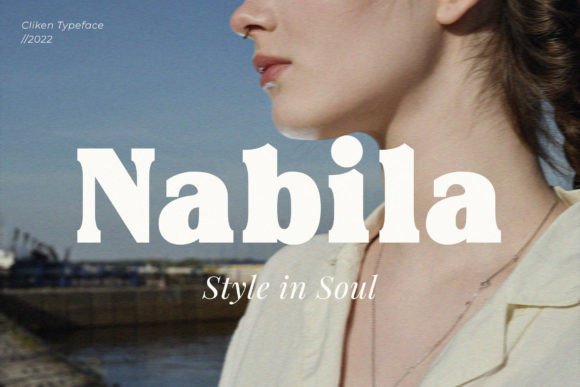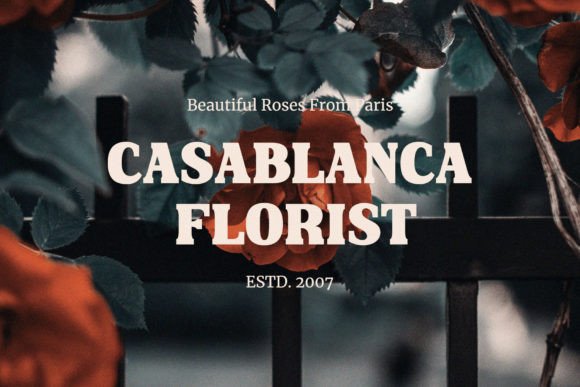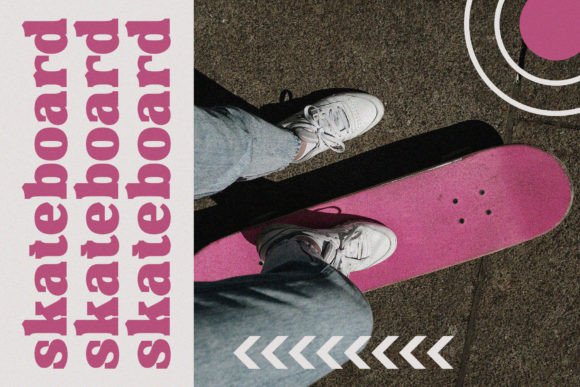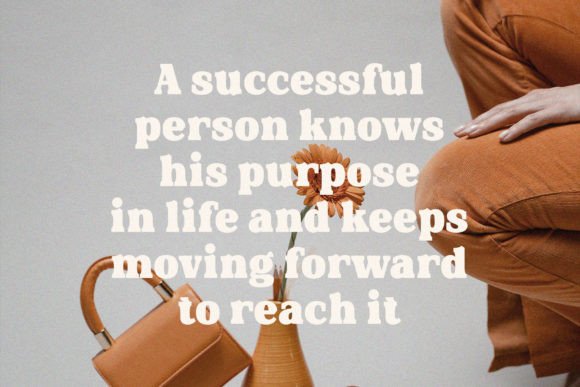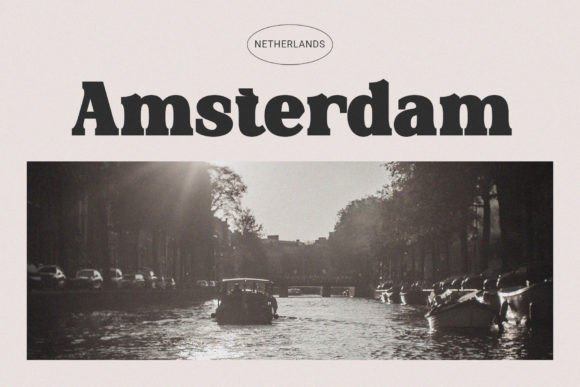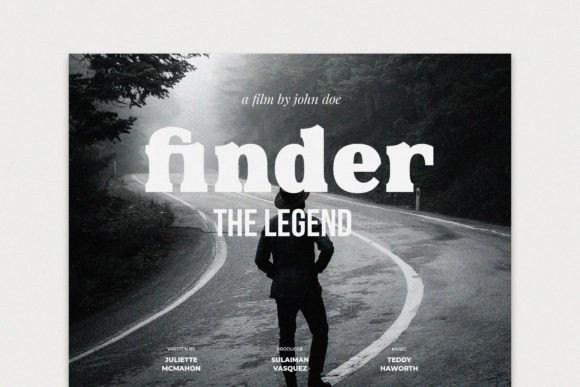
Introducing Cliken Font: Elevate Your Designs with Modern Elegance
In the world of typography, a font can make or break a design. For designers and crafters seeking a modern and stylish serif font, look no further than Cliken. This exquisitely crafted font is designed to bring a touch of sophistication and elegance to any project. With its highly detailed and neat structure, Cliken is poised to become a valuable asset in your font library.
The Characteristics of Cliken Font
Cliken is a modern serif font that boasts a unique blend of classic and contemporary elements. Its sleek lines, precise curves, and perfectly balanced proportions make it an ideal choice for a wide range of design applications. Whether you’re working on a branding project, creating a stylish website, or crafting a beautiful print material, Cliken’s versatility ensures it will adapt seamlessly to your creative vision.
Why Choose Cliken Font?
- Modern and Stylish: Cliken’s modern design ensures your projects look current and on-trend, while its stylish appearance adds a layer of sophistication.
- Highly Detailed: The font’s intricate details make it perfect for designs that require a high level of precision and clarity.
- Versatile: Cliken’s adaptability means it can be used across various mediums, from digital platforms to print materials.
- Easy to Read: Despite its stylish appearance, Cliken remains highly legible, making it suitable for body text as well as headlines.
Applications of Cliken Font
The applications of Cliken font are vast and varied. Here are a few ideas to get you started:
- Branding and Logo Design: Use Cliken to create a memorable and stylish logo that sets your brand apart.
- Web Design: Enhance your website’s typography with Cliken, making it more engaging and professional.
- Print Materials: From business cards to brochures, Cliken is perfect for any print material that requires a touch of elegance.
- Packaging Design: Add a sophisticated touch to your product packaging with Cliken’s modern serif style.
Tips for Using Cliken Font Effectively
To get the most out of Cliken, consider the following tips:
- Pair with Complementary Fonts: Combine Cliken with sans-serif fonts for a striking contrast.
- Adjust Line Spacing: Ensure optimal readability by adjusting line spacing according to your design’s requirements.
- Experiment with Colors: While Cliken looks great in black and white, don’t be afraid to experiment with colors to match your brand’s palette.
Cliken font is a game-changer for designers and crafters looking to elevate their projects with a modern and stylish serif font. Its highly detailed structure, versatility, and elegance make it an invaluable addition to any font library. By incorporating Cliken into your designs, you’ll be able to create stunning visual content that captivates and engages your audience. So why wait? Discover the power of Cliken font today and take your designs to the next level.